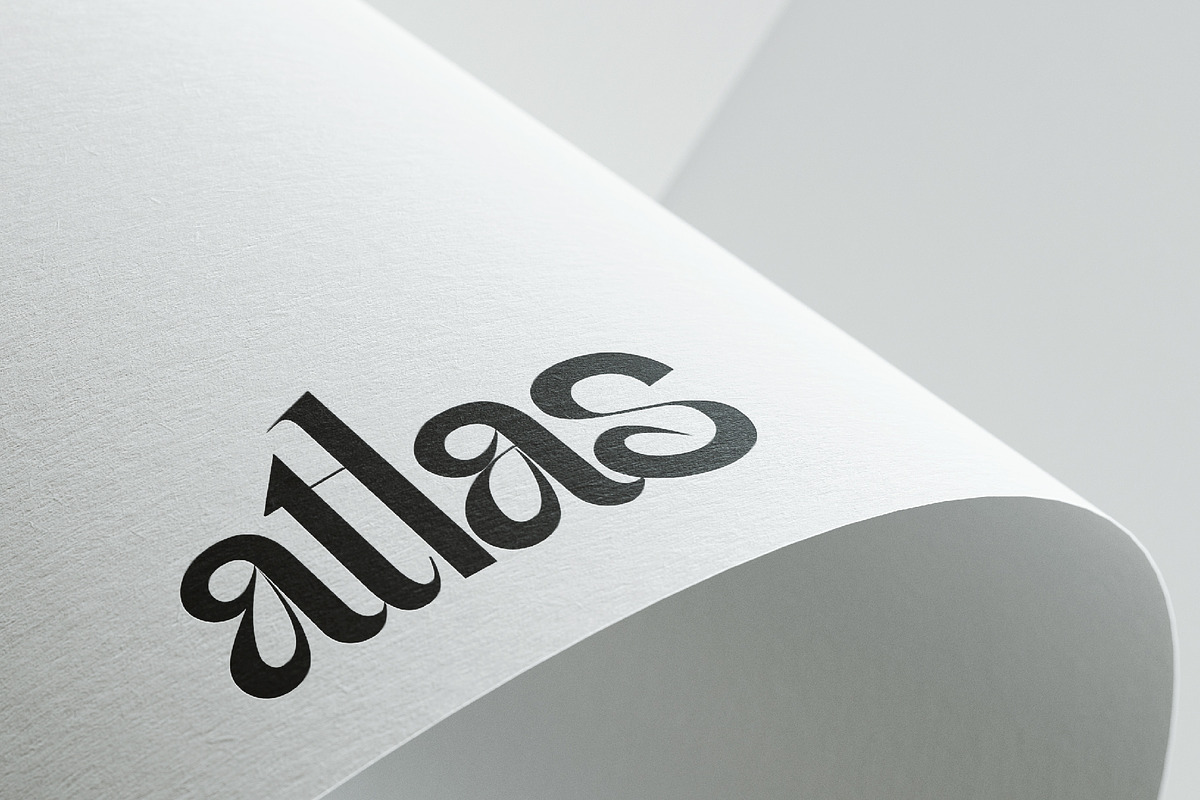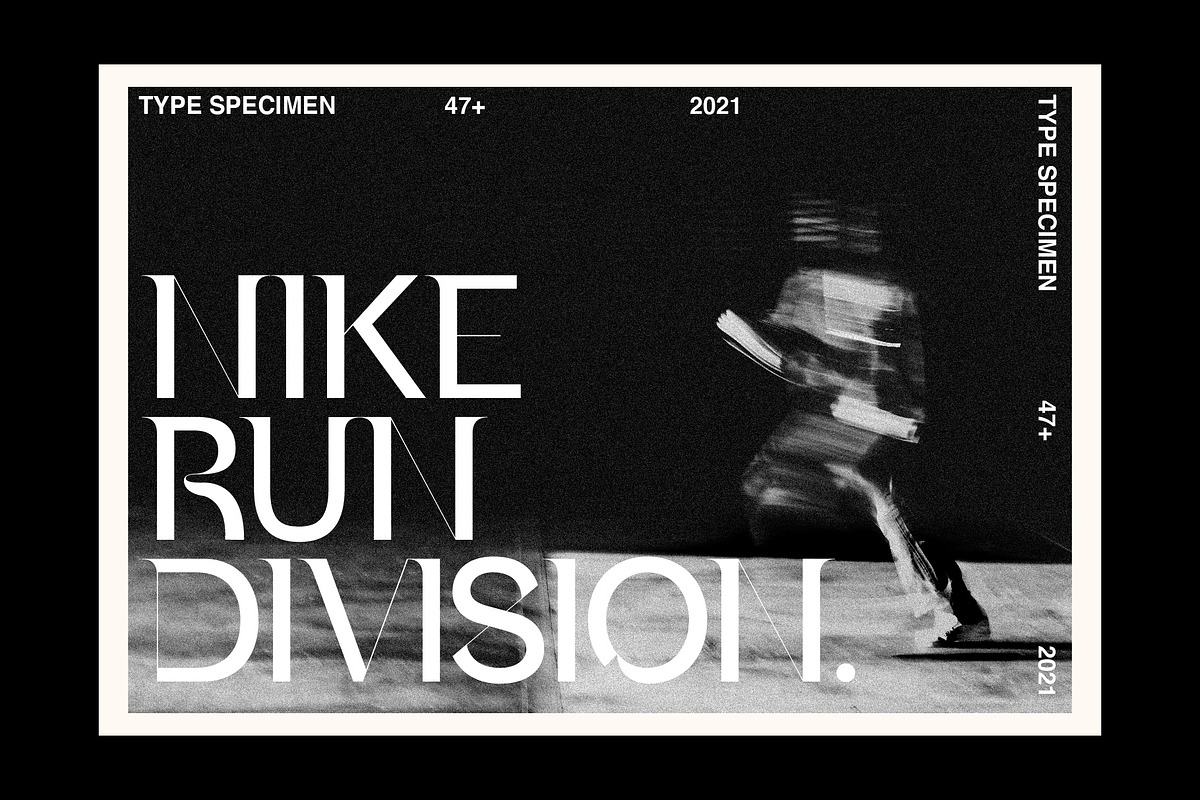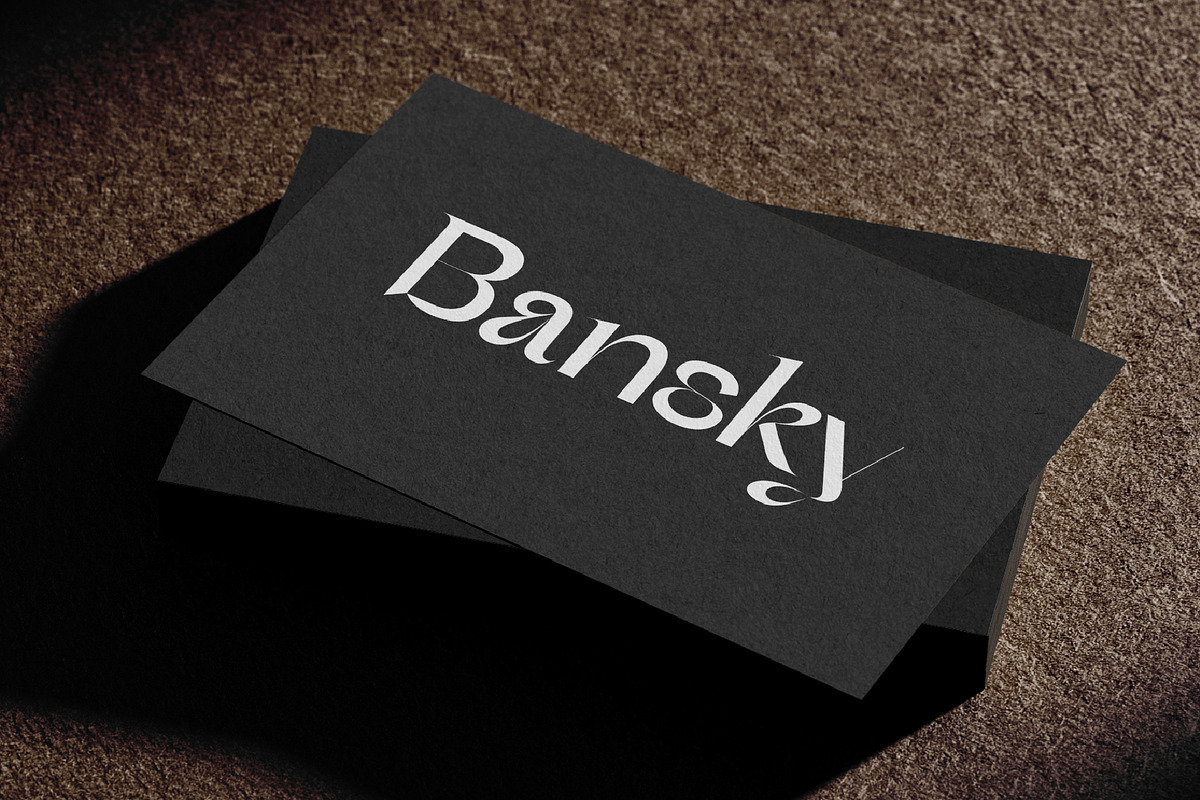
Raygun is a modern take on a Grotesk-style typeface. It created a Grotesk sans style but with added contrast and selective serifs to make a contemporary and memorable font.
Sharp points mix with smooth curves creating unique glyphs that are perfect for interesting wordmarks and typographic posters.
It is created with all the tasks of a corporate font and also for the usage in a variety of projects, including branding, logos, titles, headlines, servers, screens, display, digital ads, and everything else.